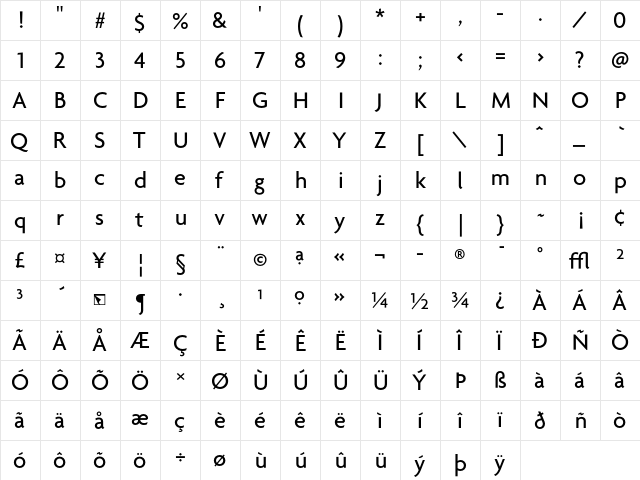
Agenda Medium Font Preview
Agenda Medium
| Foundry | Greg Thompson. Agenda is a Trademark of Greg Thompson. Produced by The Font Bureau, Inc |
Design Context for Agenda Typeface
Agenda offers clean, dependable letterforms without strong stylistic allegiance, making it a practical choice for designers who need flexibility.